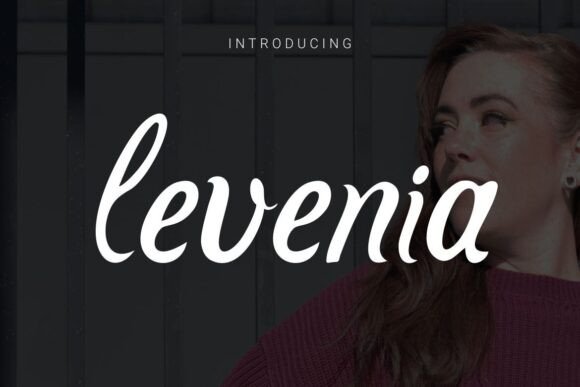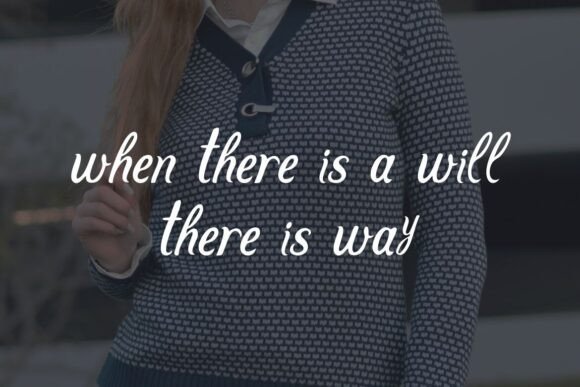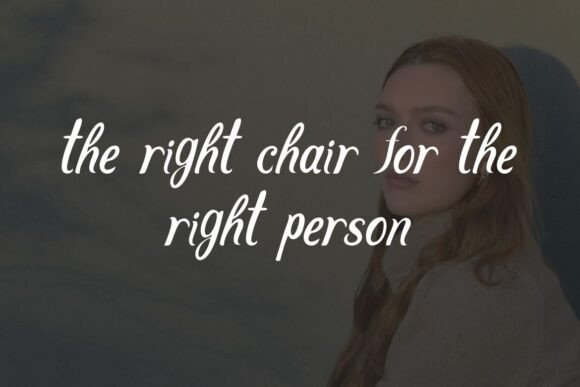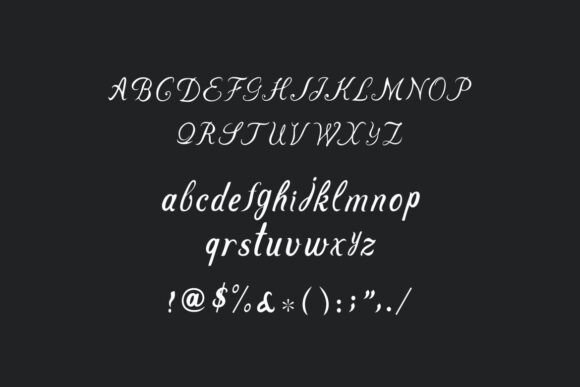
Levenia Font: Elegant Serif Script for Modern Logo Design & Branding
About the Levenia Font
Experience the unique personality of Levenia Font, a font designed for impact. Levenia is a graceful serif script that balances charm and readability. With soft curves and a flowing form, it adds a gentle elegance to logos, personal branding, or editorial layouts. Ideal for upscale yet approachable designs.
Levenia thrives in applications requiring a touch of refined elegance, such as wedding invitations, luxury branding, or high-end product packaging. Its graceful forms also make it suitable for short-form editorial pieces, like headlines or pull quotes, where readability is prioritized within a visually appealing context. However, it’s less effective for body text or UI elements where long stretches of text demand higher legibility.
Consider pairing Levenia with a clean sans-serif like Montserrat for a modern contrast or a warmer, more traditional serif like Garamond for a cohesive, classic feel. A simple geometric sans-serif such as Lato could also provide a striking counterpoint to Levenia’s flowing script, creating a sophisticated and balanced aesthetic.
Levenia projects a personality that is both sophisticated and approachable; elegant yet friendly. Its overall mood is one of gentle refinement, making it ideal for brands seeking to convey quality, trustworthiness, and a touch of understated luxury.
Levenia Font Usage Examples
Levenia Font Example